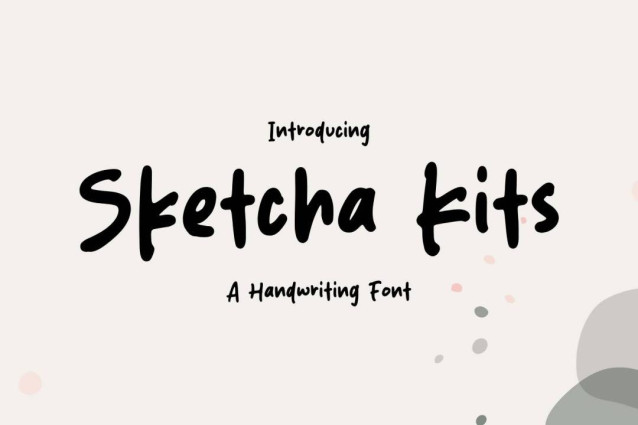
Sketcha Kits Font
Sketcha Kits Font is a simple and friendly handwritten font. Its natural and unique style makes it incredibly fitting to a large pool of designs. The only limit is your imagination!